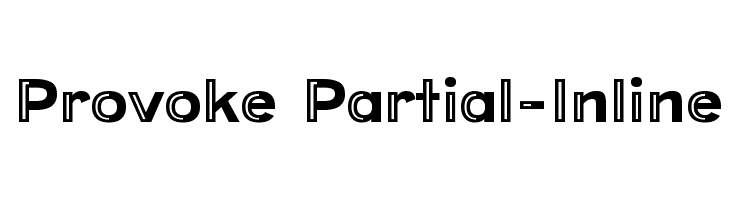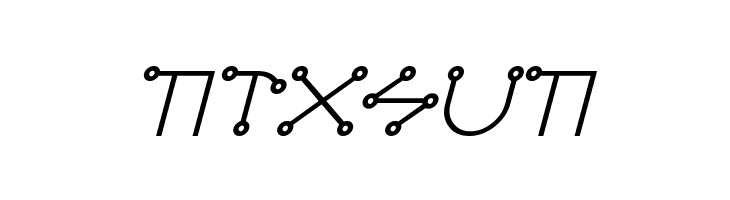
A futuristic, geometric font with circular nodes and straight lines, ideal for tech-themed designs.
A decorative dingbat font featuring Christian-themed icons.
A decorative typeface with celestial motifs and intricate details.
A decorative font with characters encased in crescent moons, featuring a celestial theme.
A bold, modern font with a partial inline style for a unique, structured look.
A bold, modern font with partial inline and rounded edges.
A bold, modern font with a partial inline style for dynamic design.
A modern, rounded font with partial inline detailing for a sleek and sophisticated look.
Ornate, decorative initials with intricate floral and cherubic designs.